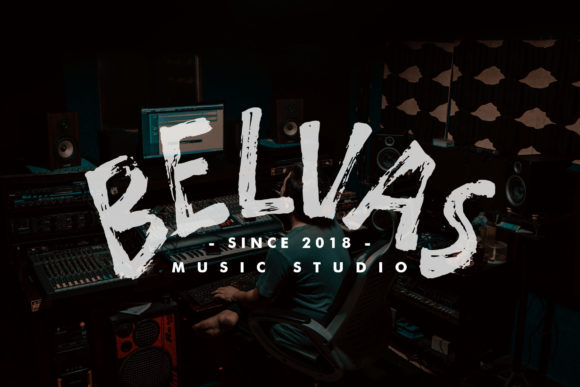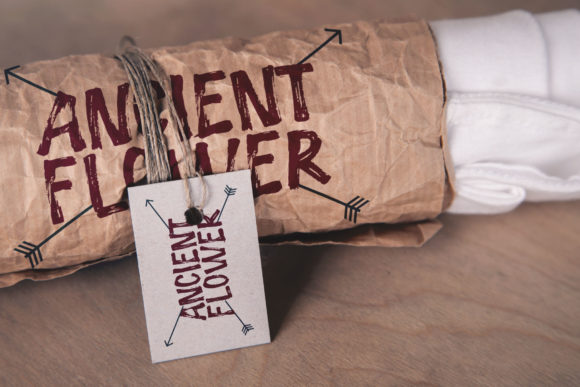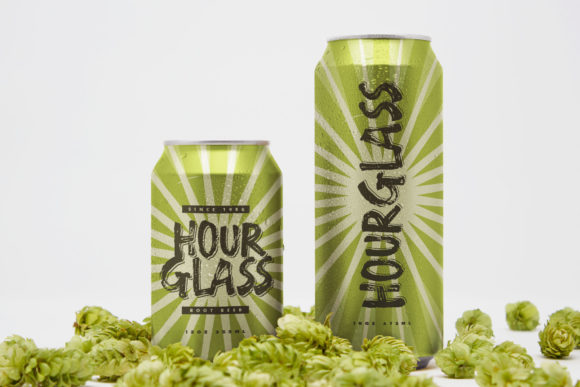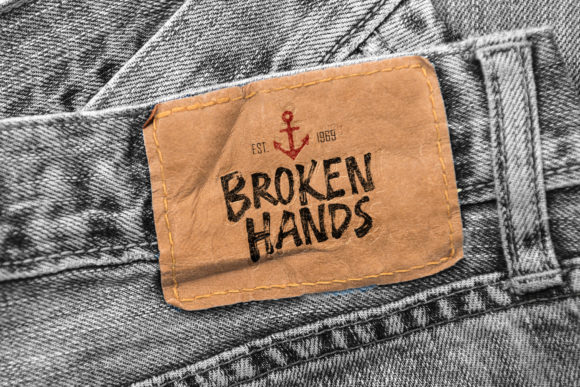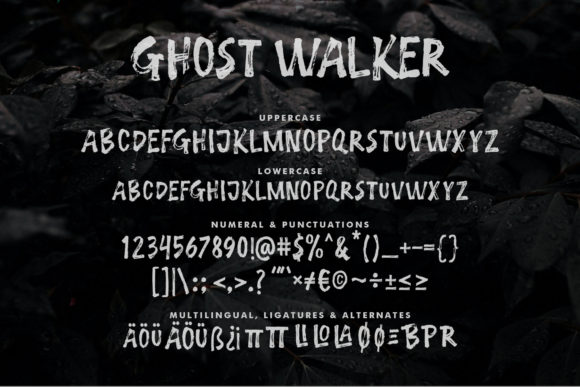
Unleash Your Creativity with Ghost Walker Font: A Unique Display Font
Are you tired of using the same old fonts for your creative projects? Look no further than the Ghost Walker Font, an incredibly unique display font that’s sure to take your designs to the next level. Masterfully designed to become a true favorite, this font has the potential to bring each of your creative ideas to life in a way that’s both quirky and captivating.
What Makes Ghost Walker Font So Special?
Ghost Walker Font is not your average font. Its unique design and quirky style make it perfect for creating beautiful stationary art, eye-catching social media posts, and much more. Whether you’re a designer, crafter, or simply someone who loves to get creative, this font is sure to inspire you to try new things and push the boundaries of your imagination.
Key Features of Ghost Walker Font
- Unique Display Font: Ghost Walker Font is a one-of-a-kind display font that’s sure to grab attention and make your designs stand out.
- Quirky Style: With its quirky style and playful vibe, this font is perfect for creating fun and engaging designs that showcase your personality.
- Highly Versatile: Whether you’re creating stationary art, social media posts, or anything in between, Ghost Walker Font is highly versatile and can be used for a wide range of creative projects.
How to Use Ghost Walker Font in Your Designs
So, how can you use Ghost Walker Font in your designs? The possibilities are endless! Here are a few ideas to get you started:
- Stationary Art: Use Ghost Walker Font to create beautiful stationary art, including greeting cards, invitations, and more.
- Social Media Posts: Add a touch of personality to your social media posts with Ghost Walker Font, perfect for creating eye-catching graphics and engaging content.
- Branding and Packaging: Use Ghost Walker Font to create unique and memorable branding and packaging for your business or product.
- Digital Art: Experiment with Ghost Walker Font in your digital art, creating stunning and unique pieces that showcase your creativity.
Why Designers and Crafters Love Ghost Walker Font
So, why do designers and crafters love Ghost Walker Font? Here are just a few reasons:
- Unparalleled Uniqueness: Ghost Walker Font is truly one-of-a-kind, offering a level of uniqueness that’s hard to find in other fonts.
- Easy to Read: Despite its quirky style, Ghost Walker Font is easy to read and can be used for both short and long pieces of text.
- Highly Customizable: With Ghost Walker Font, you can experiment with different colors, sizes, and styles to create a look that’s all your own.
- Constantly Inspiring: This font is constantly inspiring, encouraging designers and crafters to try new things and push the boundaries of their creativity.
Tips and Tricks for Using Ghost Walker Font
Here are a few final tips and tricks for using Ghost Walker Font:
- Experiment with Colors: Don’t be afraid to experiment with different colors and color combinations to create a look that’s all your own.
- Play with Size: Play with the size of Ghost Walker Font to create visual interest and add emphasis to your designs.
- Mix and Match: Mix and match Ghost Walker Font with other fonts and design elements to create a unique and eye-catching look.
With these tips and tricks, you’ll be well on your way to creating stunning designs with Ghost Walker Font. So what are you waiting for? Get creative and have fun!